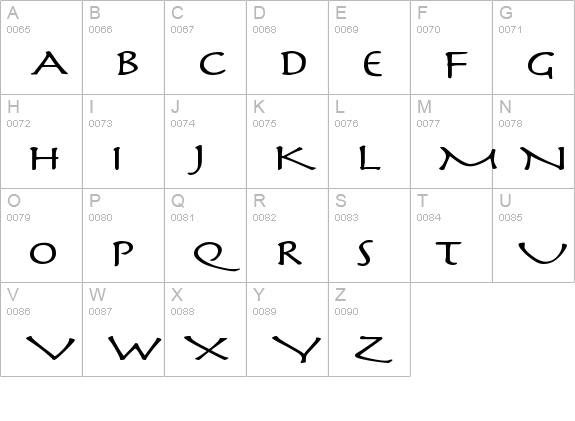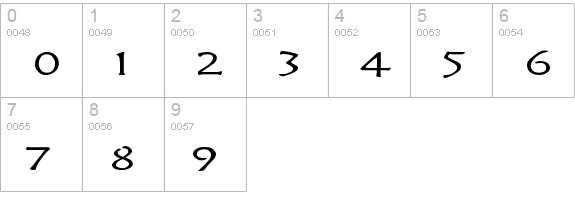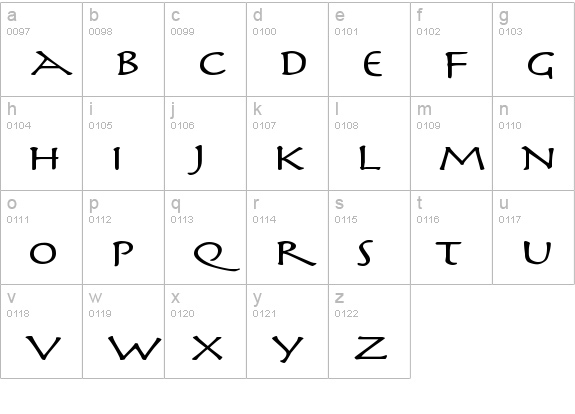
Mythology Extended Normal is the standard, neutral, extended-width variant in the Mythology typeface family \xE2\x80\x94 well suited to general body text, paragraphs, and standard typographic work.
Mythology Extended Normal font is a stunning display typeface that combines elegance and sophistication with a touch of mystery. Its elongated proportions and intricate details make it perfect for adding a touch of magic to your designs. This font is ideal for projects that require a unique and eye-catching aesthetic, such as book covers, posters, and branding materials. The Mythology Extended Normal font is available for free download at FontsMarket.com, making it easily accessible for designers and creatives looking to enhance their work with a touch of mythic charm. Don't miss out on this opportunity to add a touch of enchantment to your projects with this captivating font!